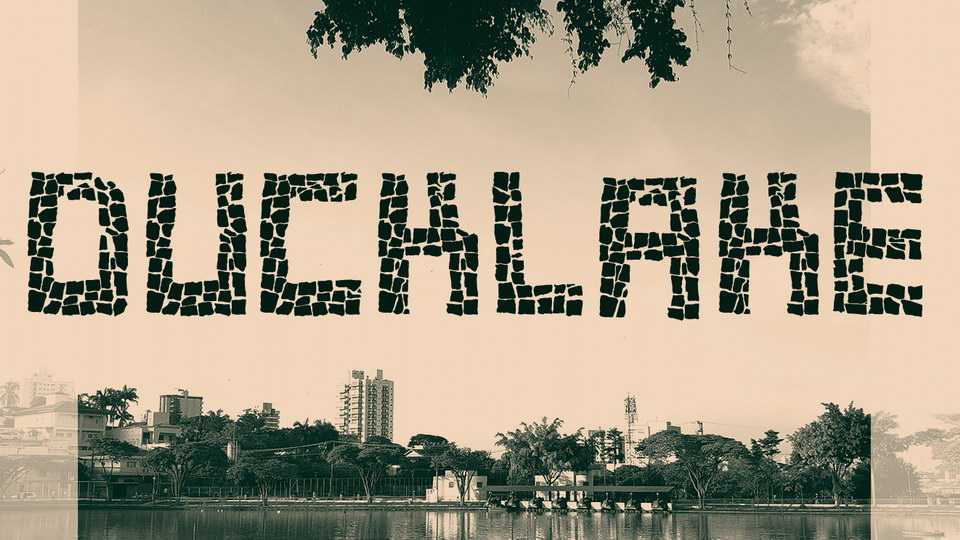
DuckLake Font › Fontesk
Download DuckLake font, a display typeface developed from the sidewalk numbers at Lago dos Patos – Guarulhos. DuckLake font is based on tiles and gathers uppercase letters, numbers and some symbols.
Designer: Leonardo Mousse